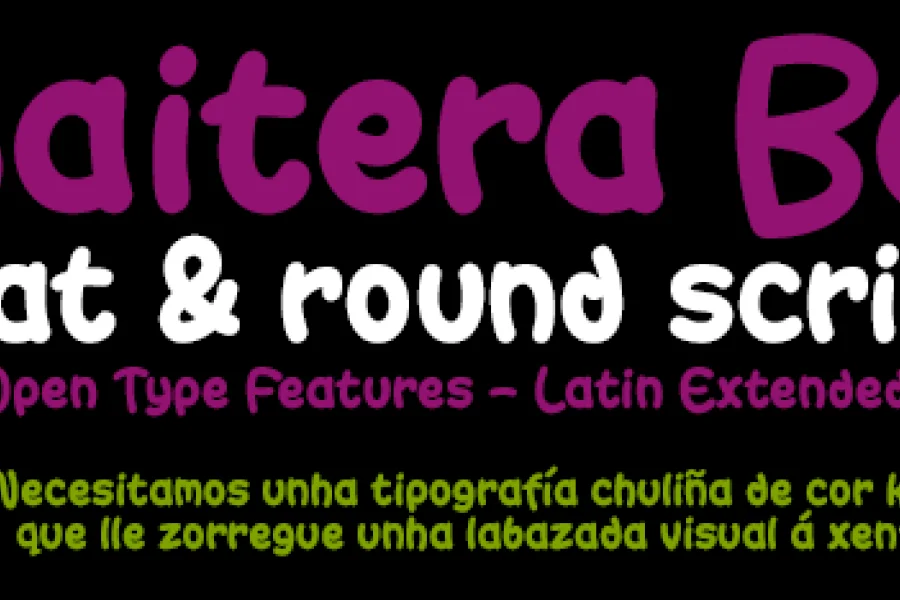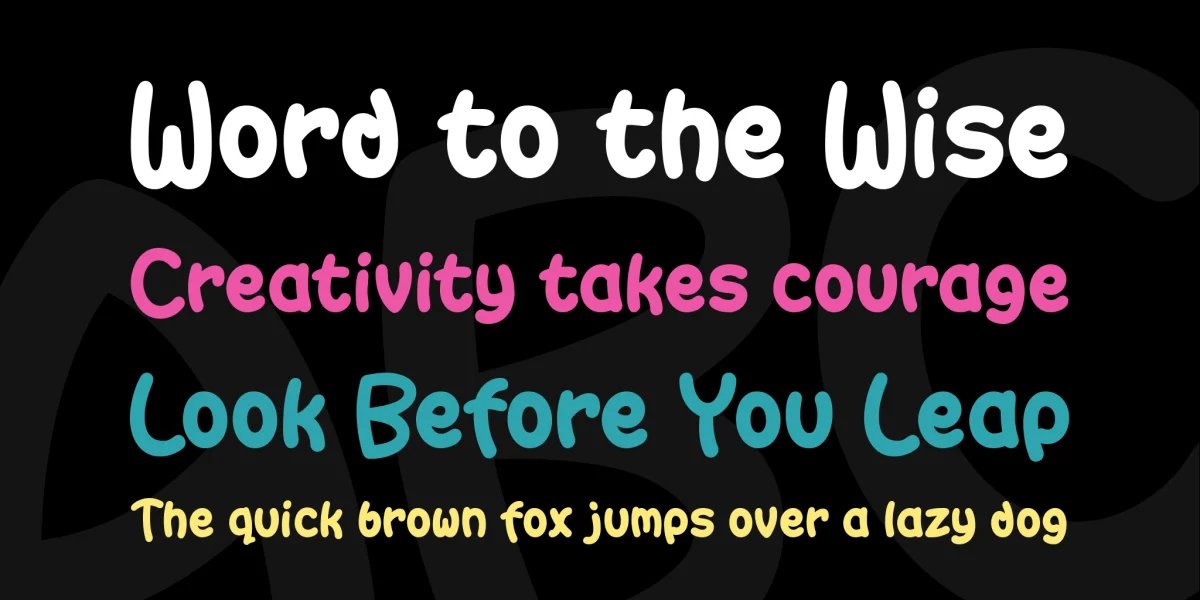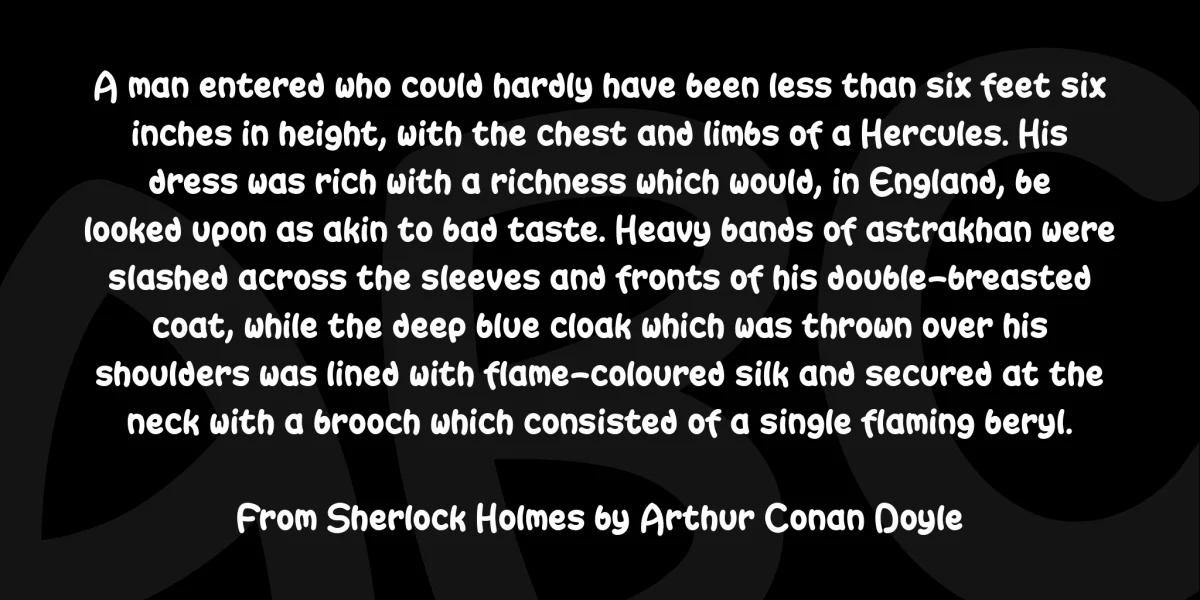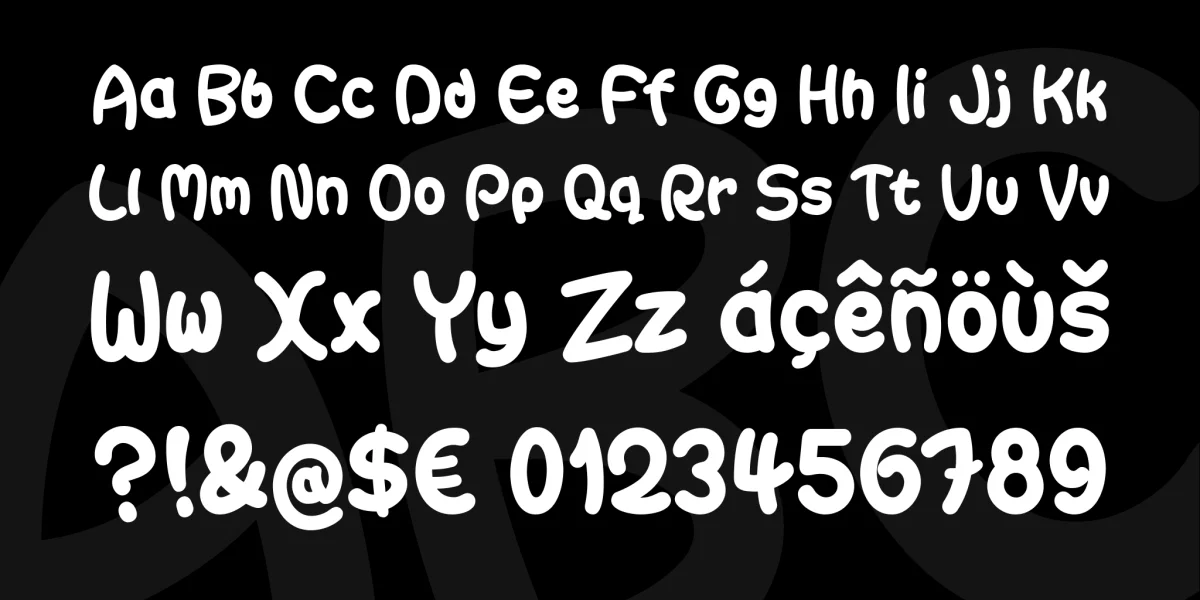
Gaitera Ball is a handwritten typography made with very big spherical tip pen and friendly looking, it is perfect for designing eye-catching titles of manuscript style. The source has short ascenders and descenders and proportional capital letters give a very compact appearance.